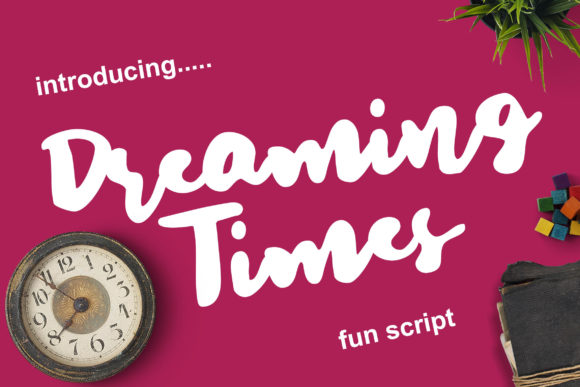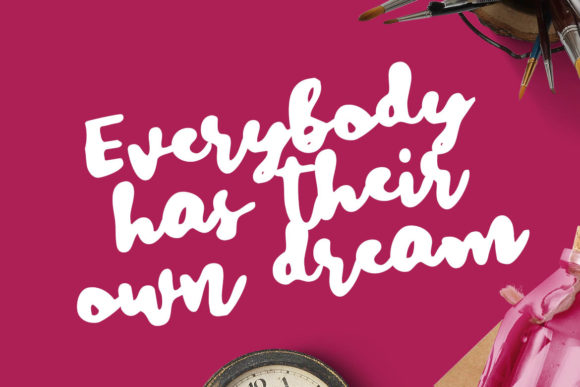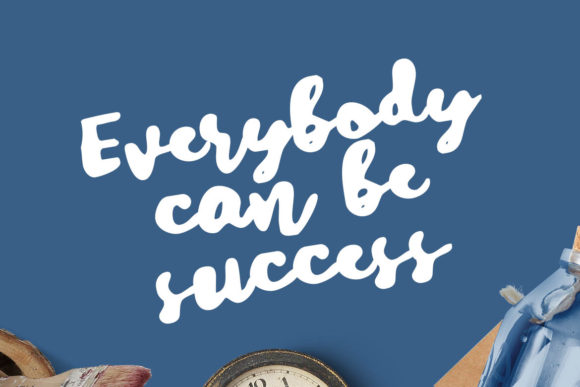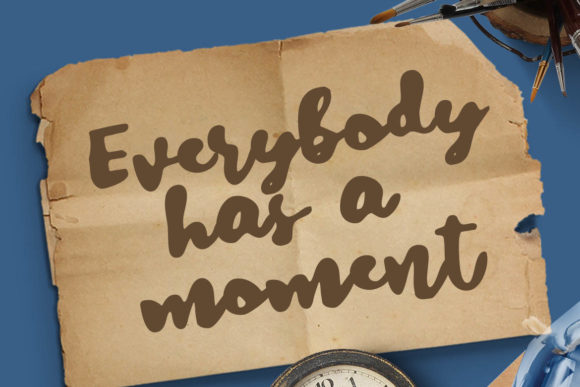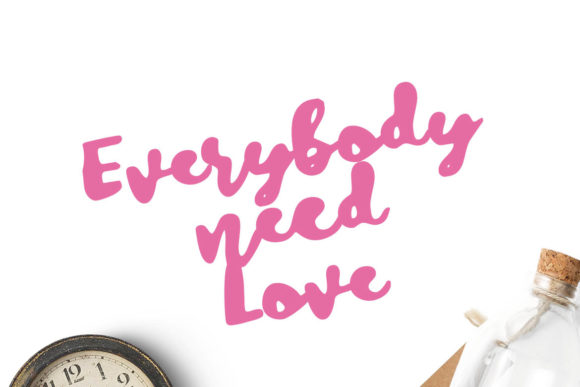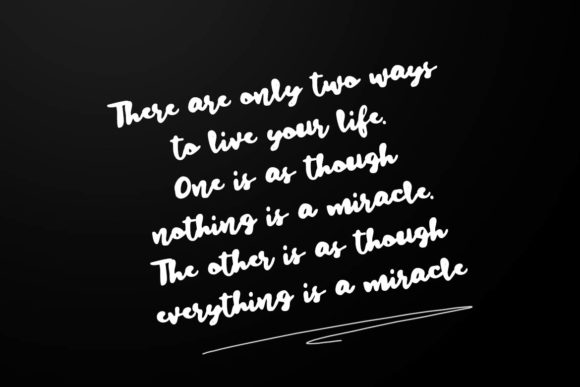
Dreaming Times Font
The Dreaming Times is a playful, bouncing script. It’s natural and loveable and will add a fun touch to your logos, posters, web headers, invitations, and much more!